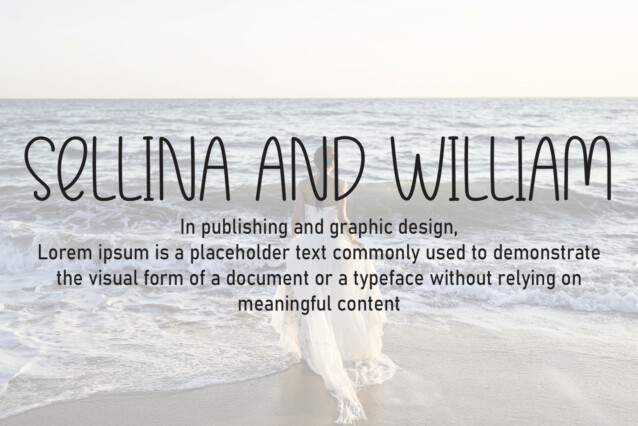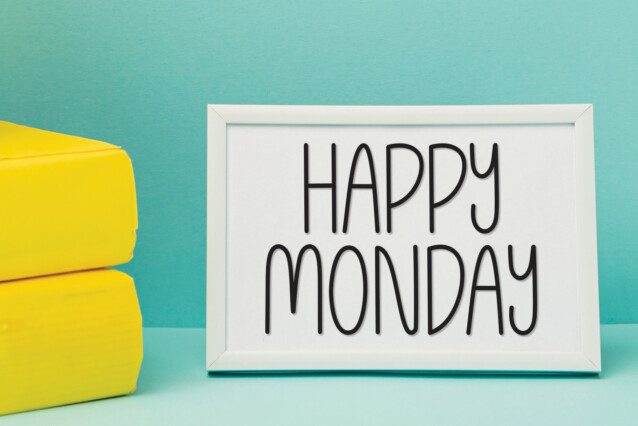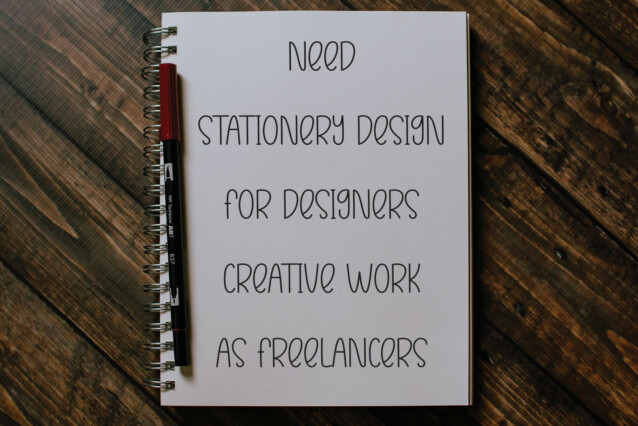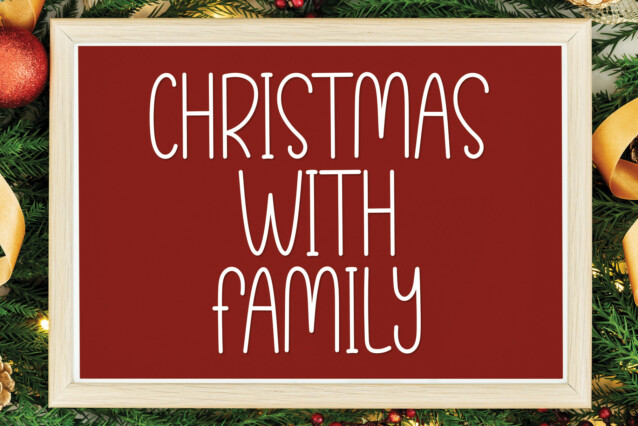
Market Creative Display Font
Market Creative Display Font feels equally charming and elegant. It looks stunning on wedding invitations, thank you cards, quotes, greeting cards, logos, business cards and every other design which needs a handwritten touch.